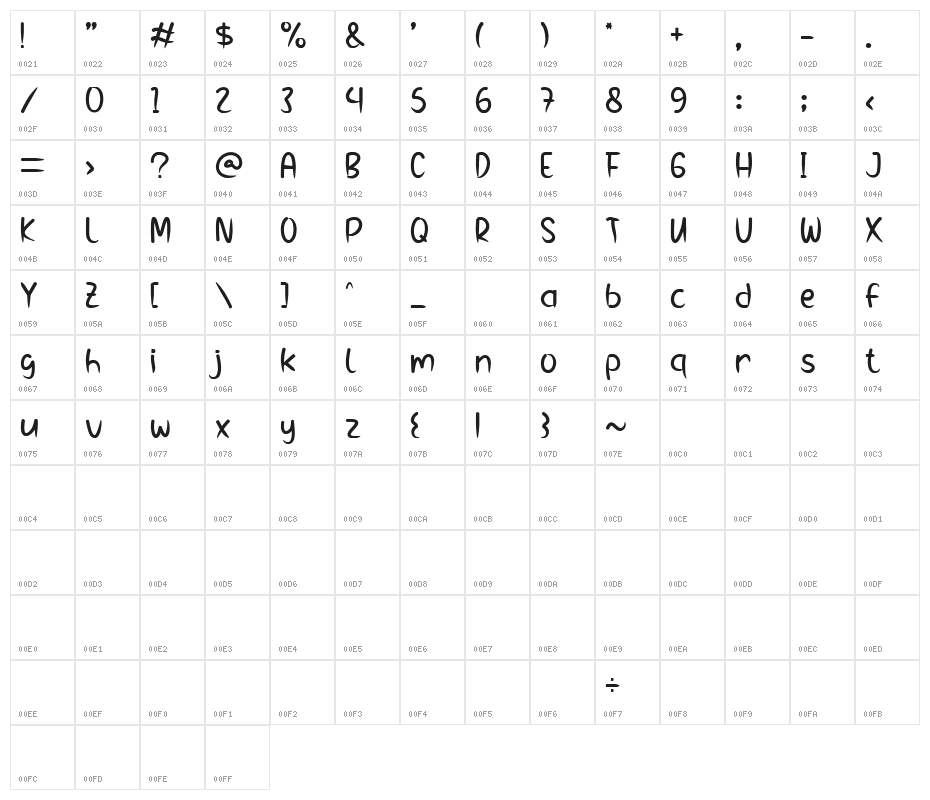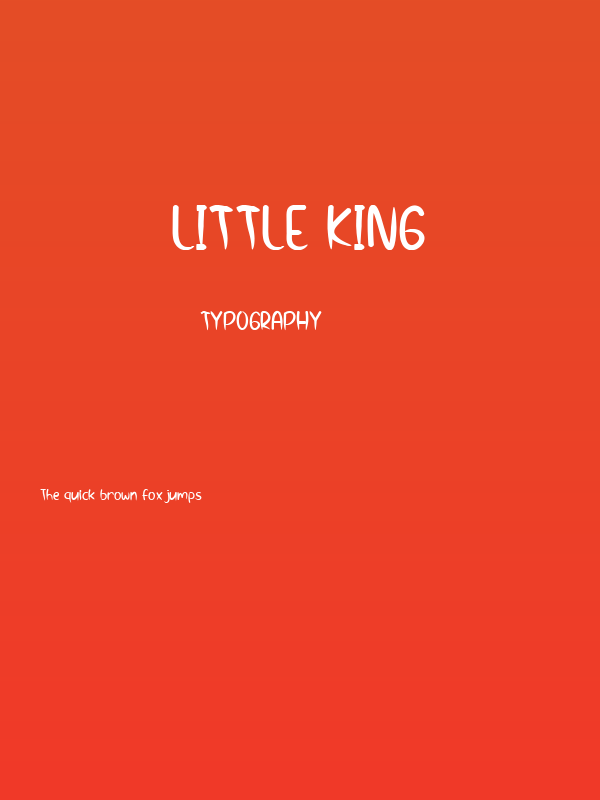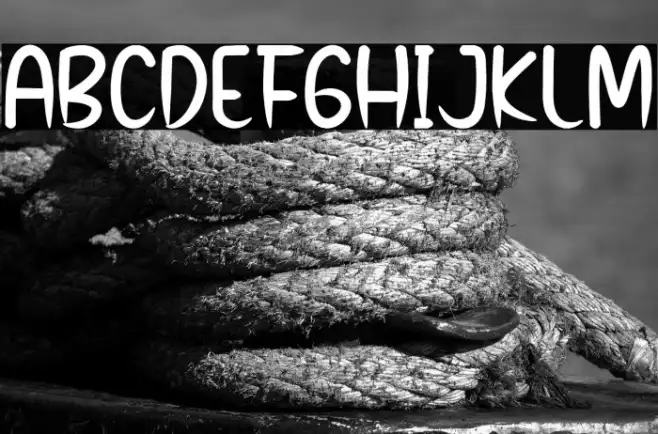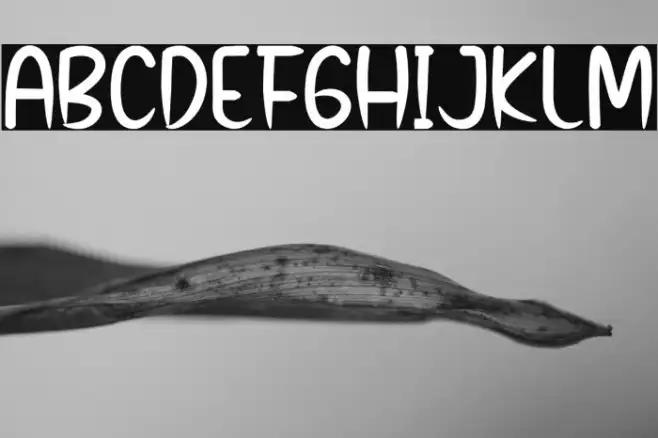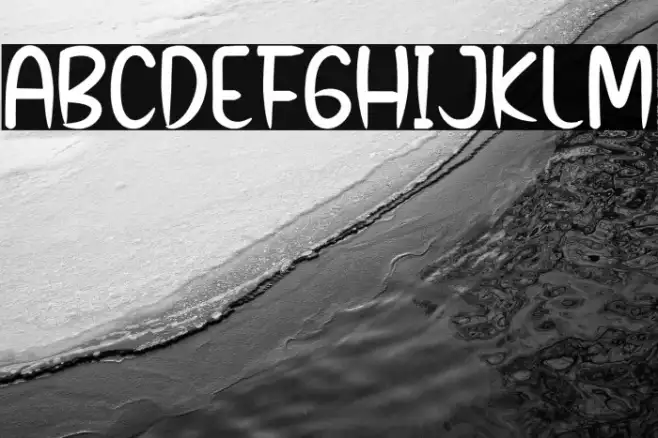
Little King Font
Little King Description
This playful and whimsical font features rounded, hand-drawn characters with a casual and friendly appearance. The uppercase and lowercase letters have a consistent style, with slightly exaggerated curves and a smooth flow that adds a touch of charm. The numbers and special characters maintain the same playful aesthetic, making them suitable for creative and informal designs. The font's overall look is approachable and fun, ideal for projects that require a lighthearted and engaging feel. Its unique style makes it stand out, while still being legible and versatile for various applications.
| Proposed Projects | Ideal for children's books, playful branding, greeting cards, and casual invitations. |